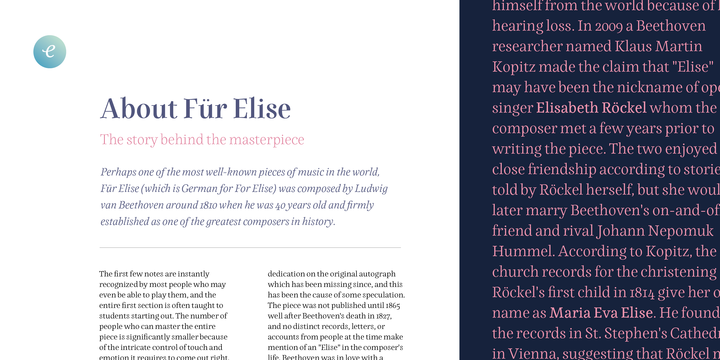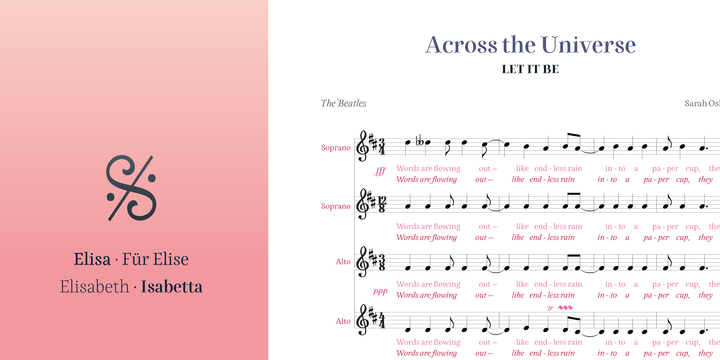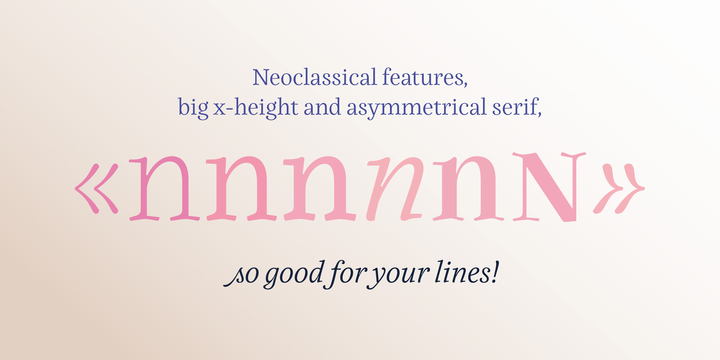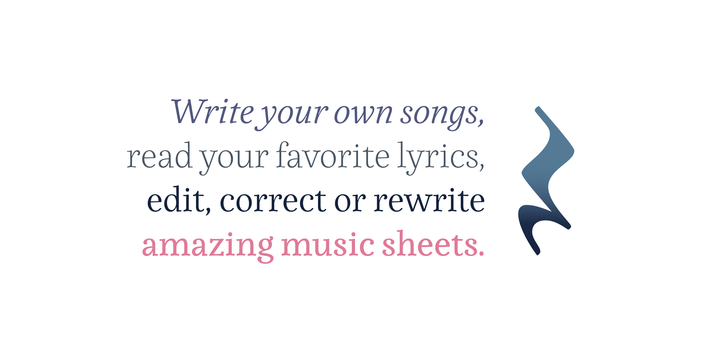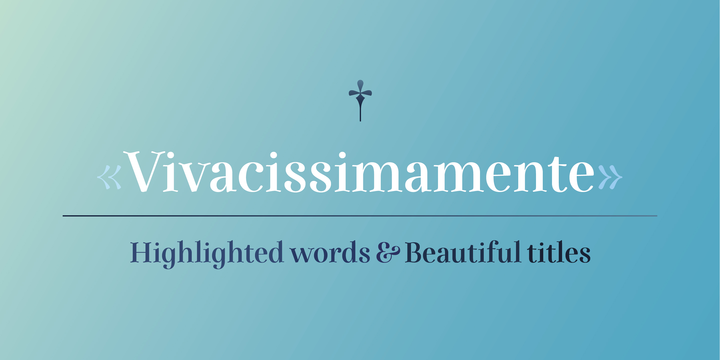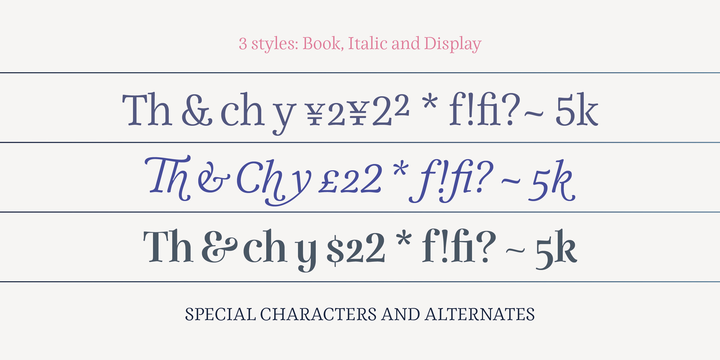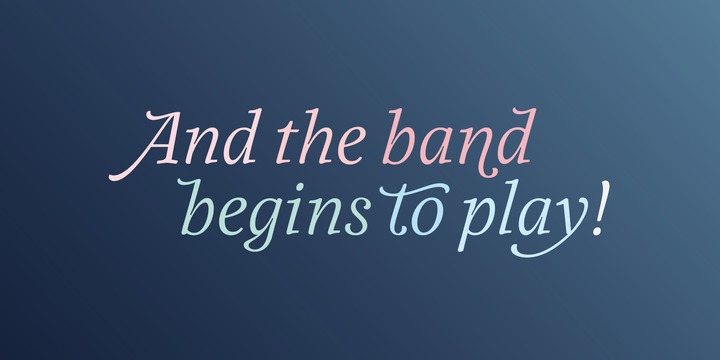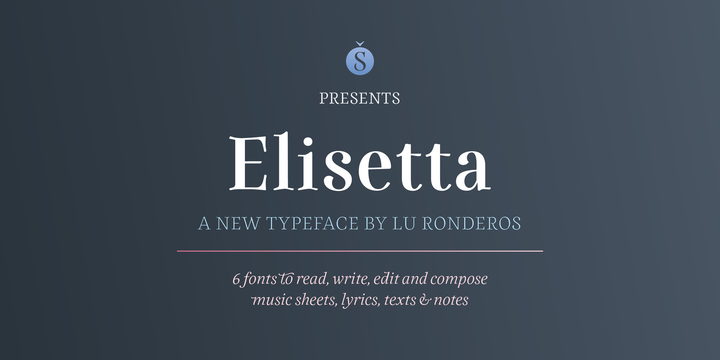
Elisetta Font Family
Musical notes and letterforms, silences and white spaces, pentagrams and lines, music and writing have much in common and go beyond time, cultures, styles and locations. This new typeface emerges from the blend between the lyrics and the harmony, rhythm, femininity and luminosity of the traditional musical forms. It`s not about blues or rock, tango or salsa, instead it recovers the neoclassical characteristics of the current musical notation system and revitalize the essence of its signs.